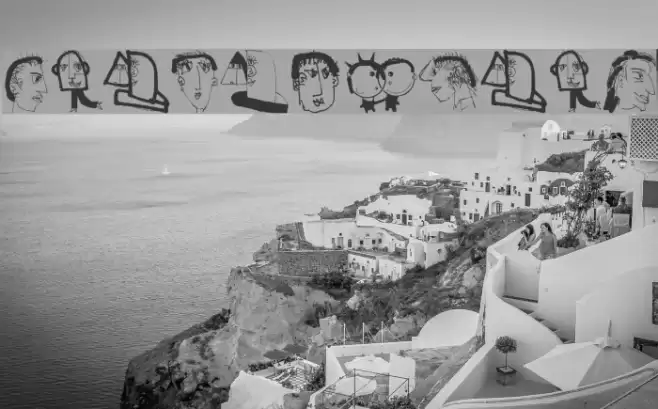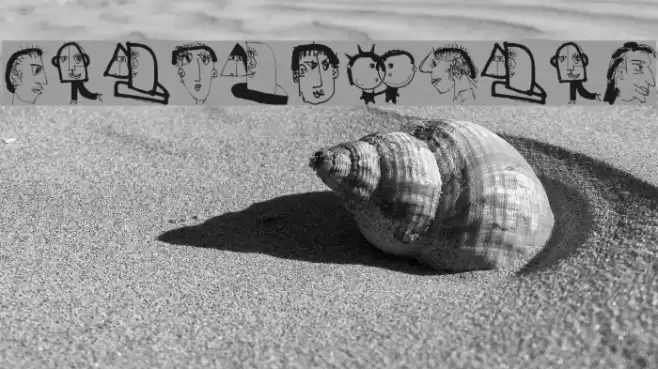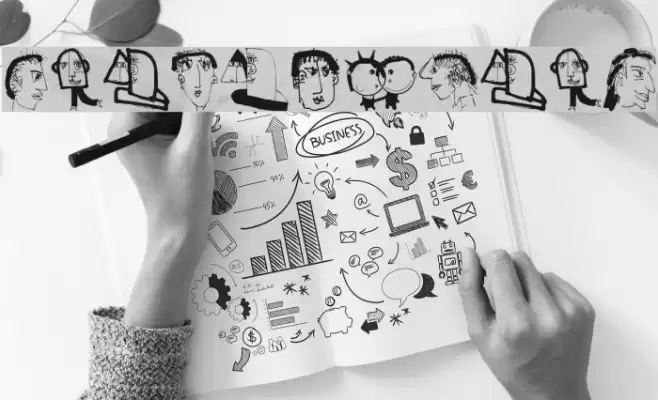
VectorFaces Font
VectorFaces Description
A highly decorative and whimsical font composed of hand-drawn vector illustrations of faces and figures, each character uniquely stylized with expressive features and playful line work.
| Overall Style | Decorative, Whimsical, Artistic |
| Use Case | Logos, Posters, Headlines, Artistic projects |
| Proposed Projects | Children's books, posters, album covers, creative branding, event invitations, art projects. |